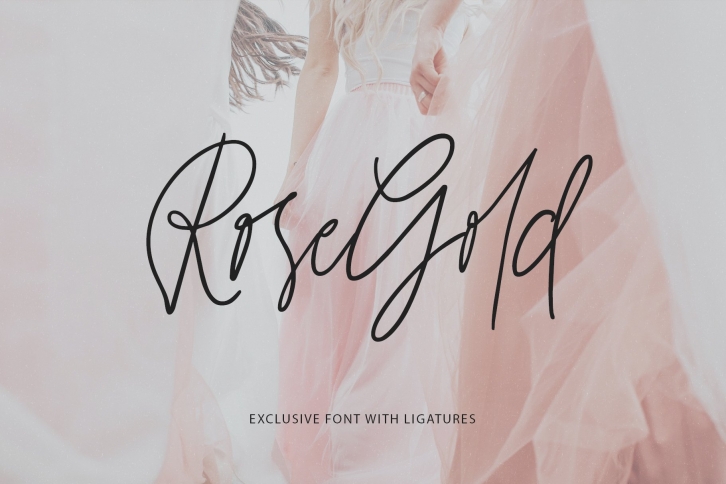
Rosegold Exclusive Script
Rosegold it is a Lettering chick font with exquisite accents. It is perfect for branding, wedding invitations and invitation cards and many more
Font includes a full set of gorgeous uppercase and lowercase letters, numbers, a large selection of punctuation marks & ligatures
- Regular Script
- Latin languages support
- Uppercase and lowercase
- Numbers and punctuation